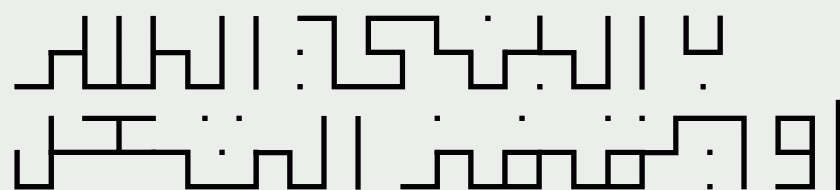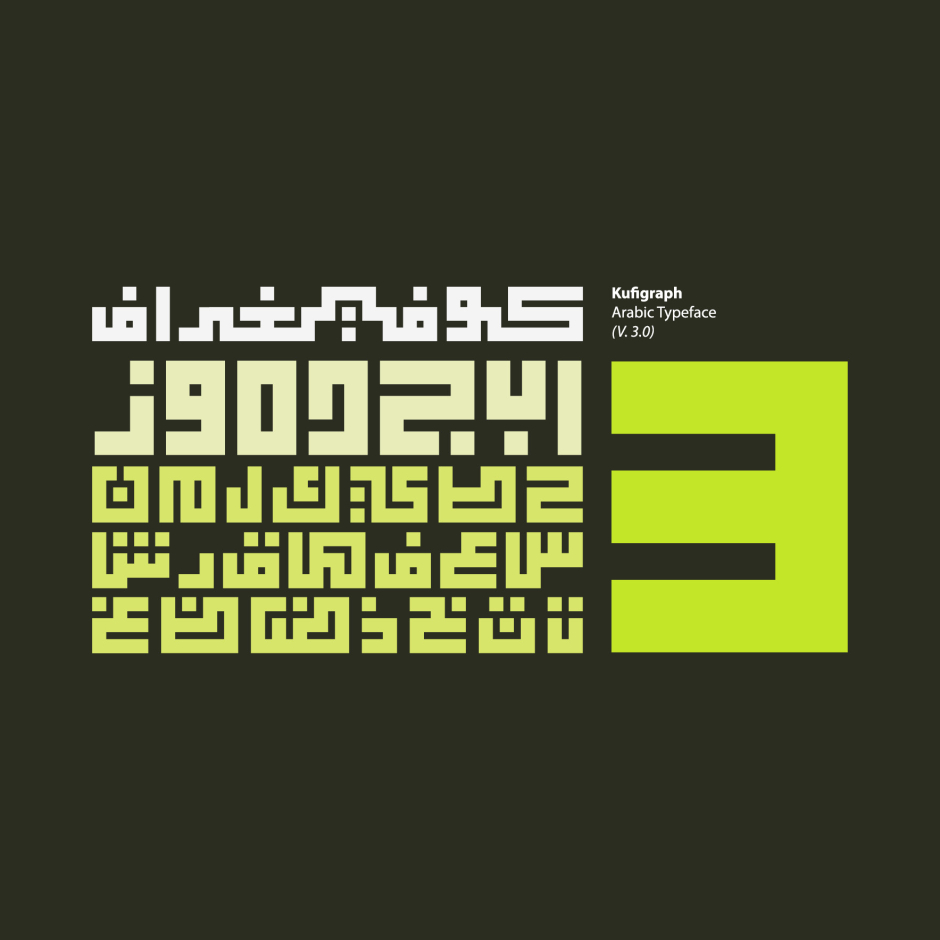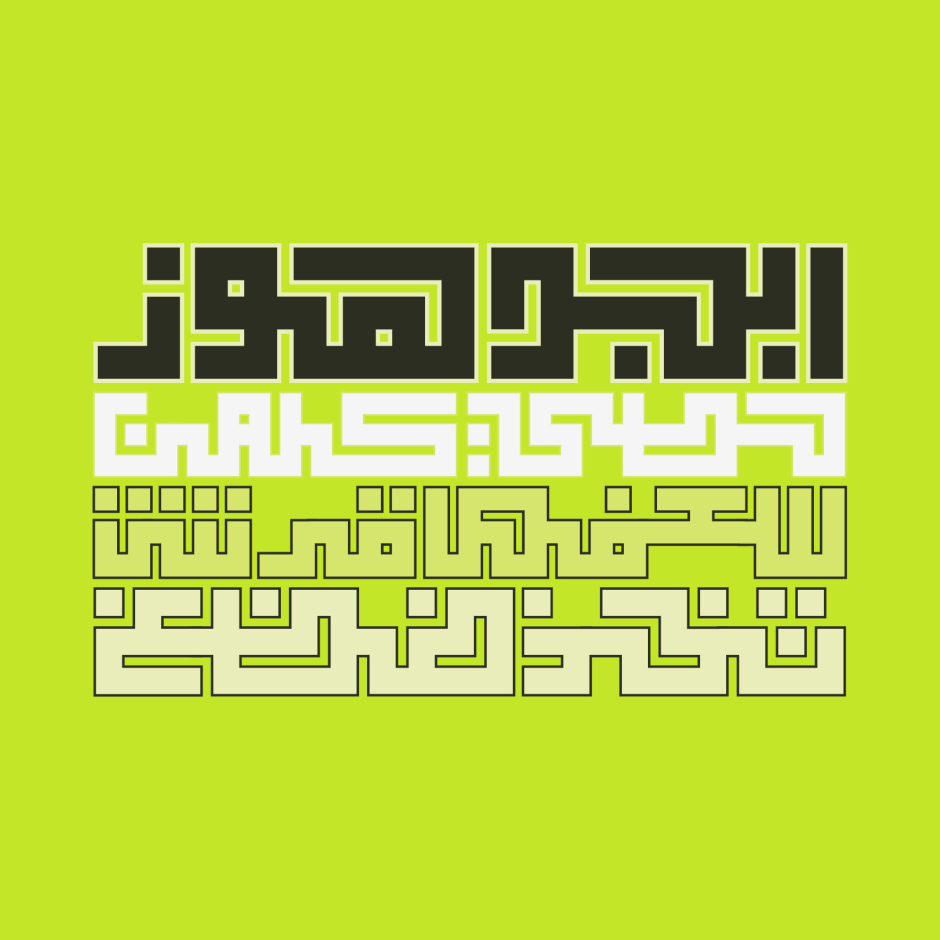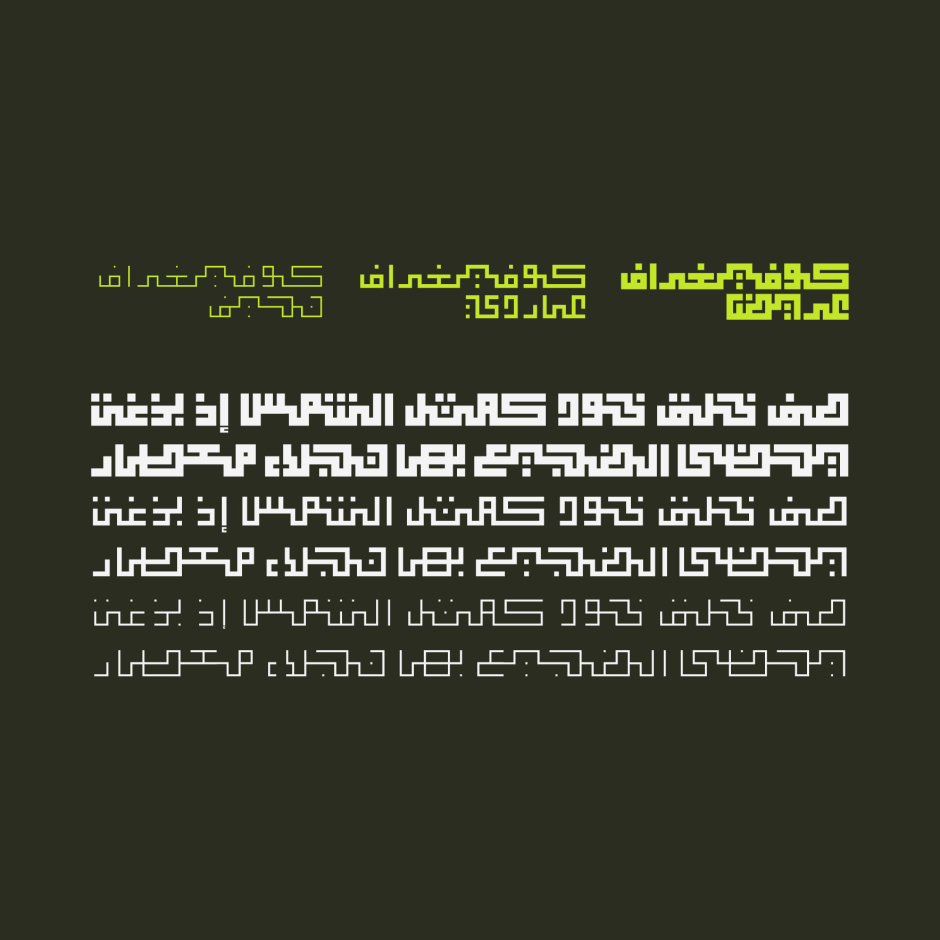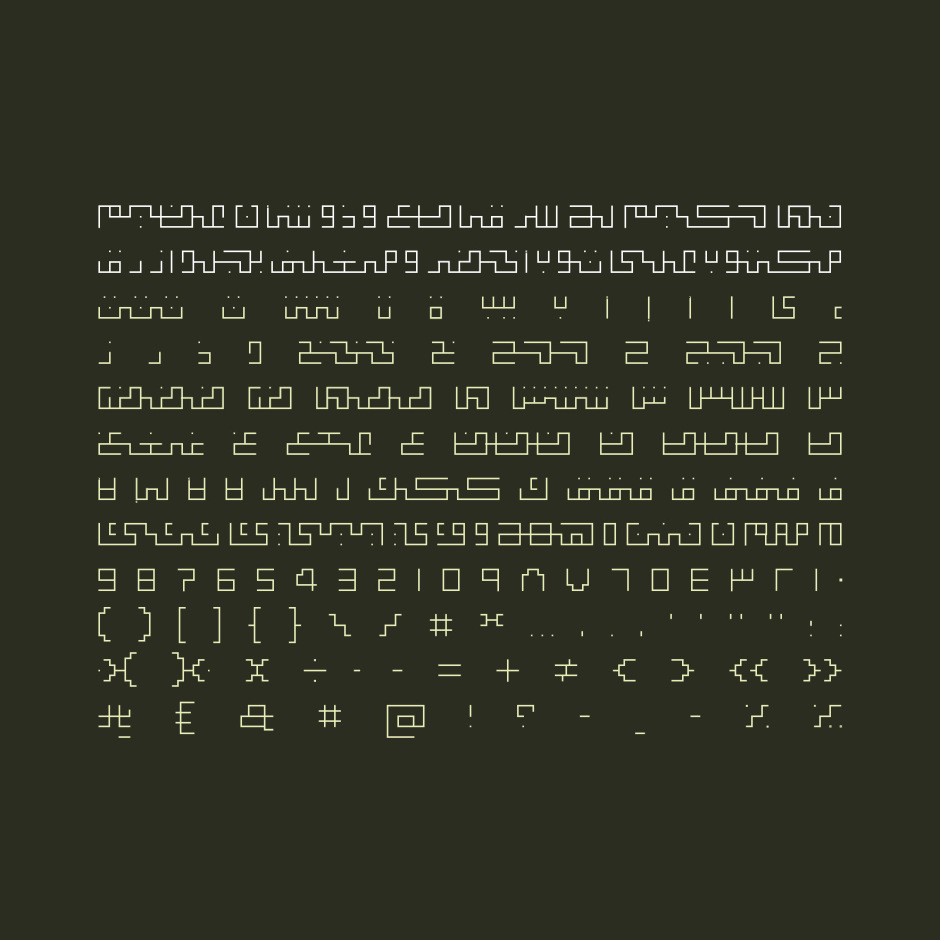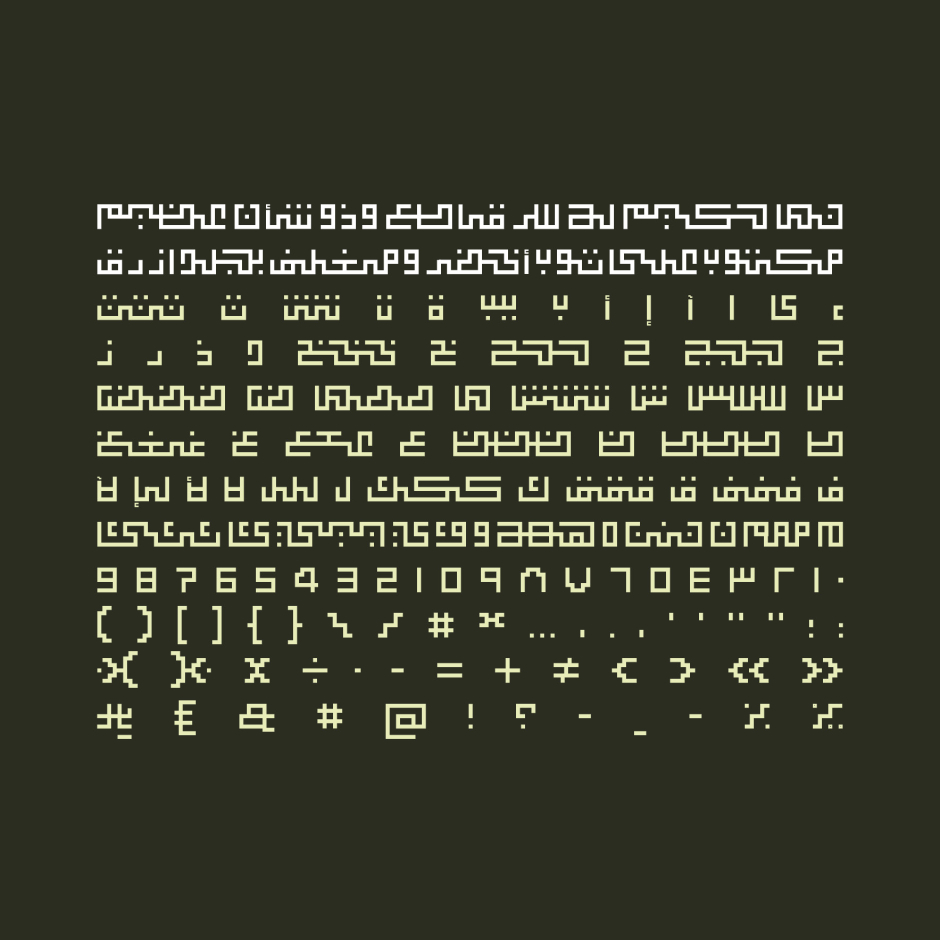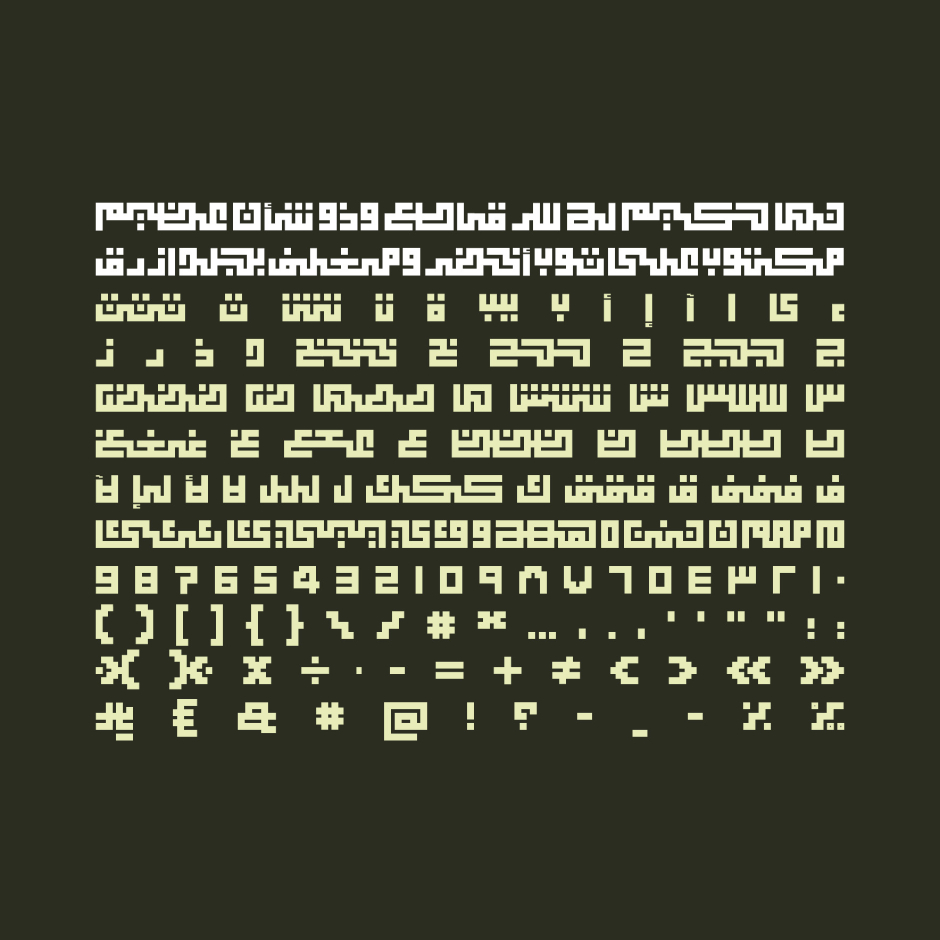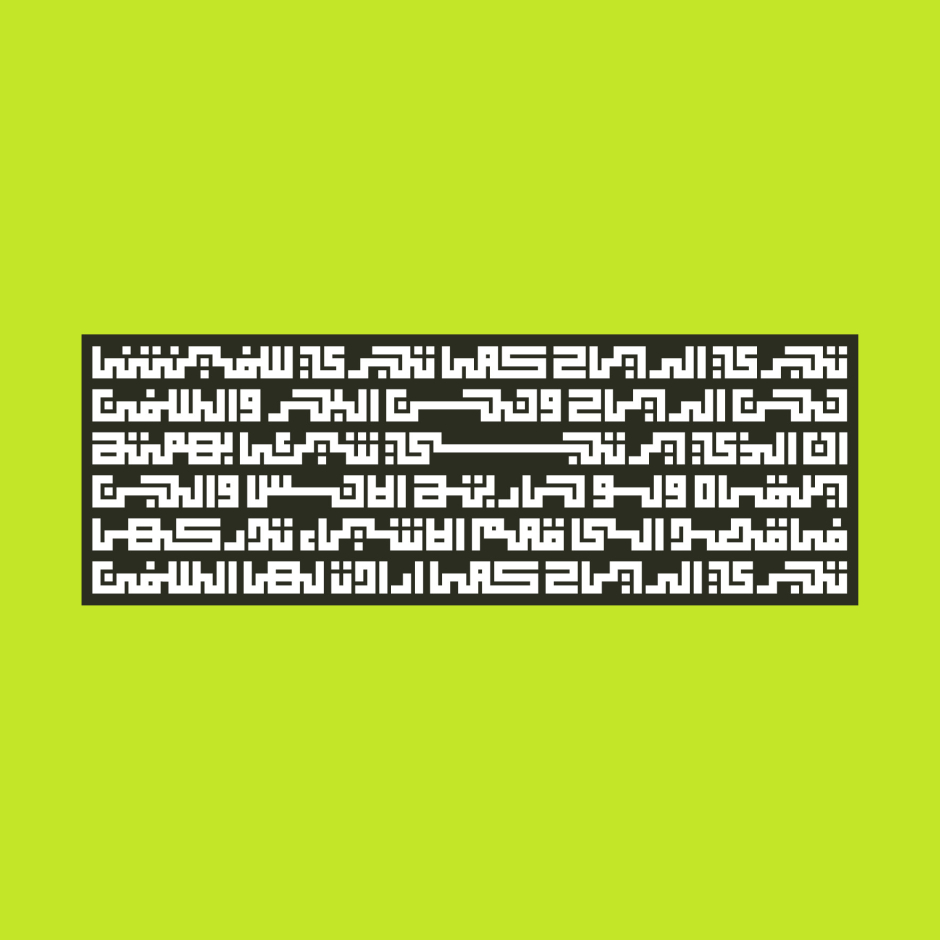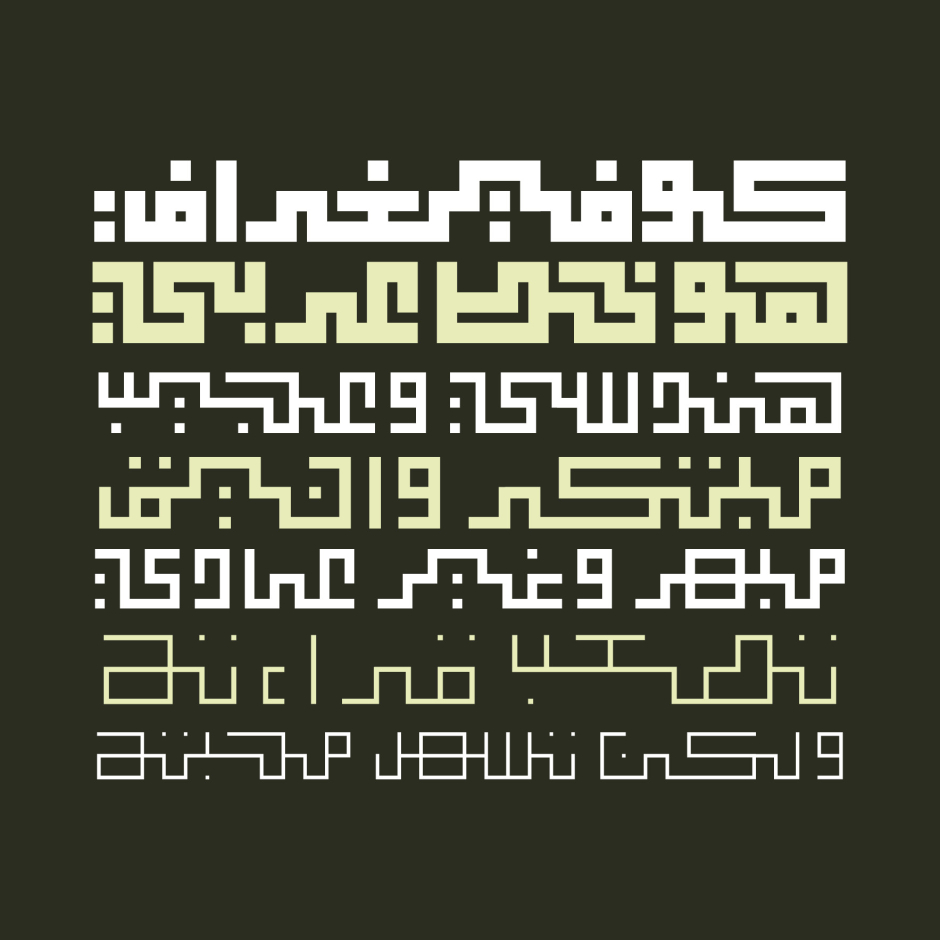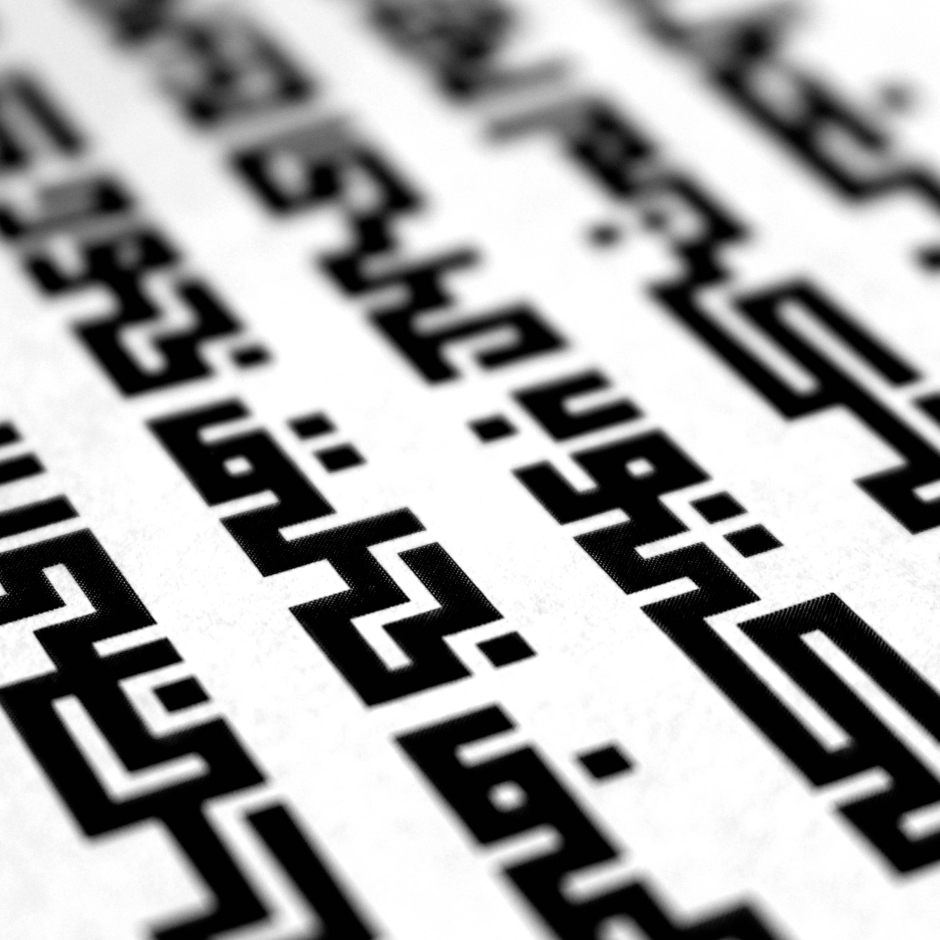
Kufigraph
Kufigraph is an Arabic display typeface characterized by its distinctive geometric design. Departing from the conventional structure of Arabic script, Kufigraph positions its baseline centrally between the ascenders and descenders. Several letterforms have been entirely reimagined to align with this innovative structure, enhancing the overall typing experience. Available in three weights, light, regular, and bold. Kufigraph is ideal for a wide range of creative projects.